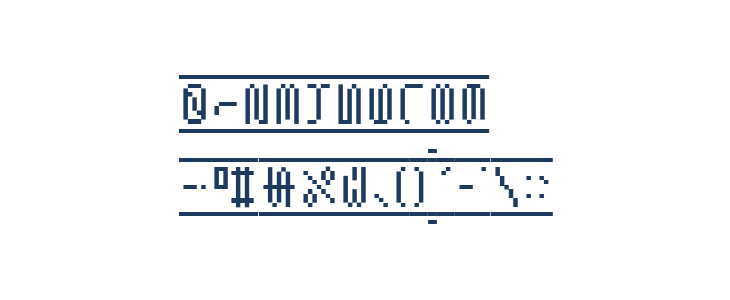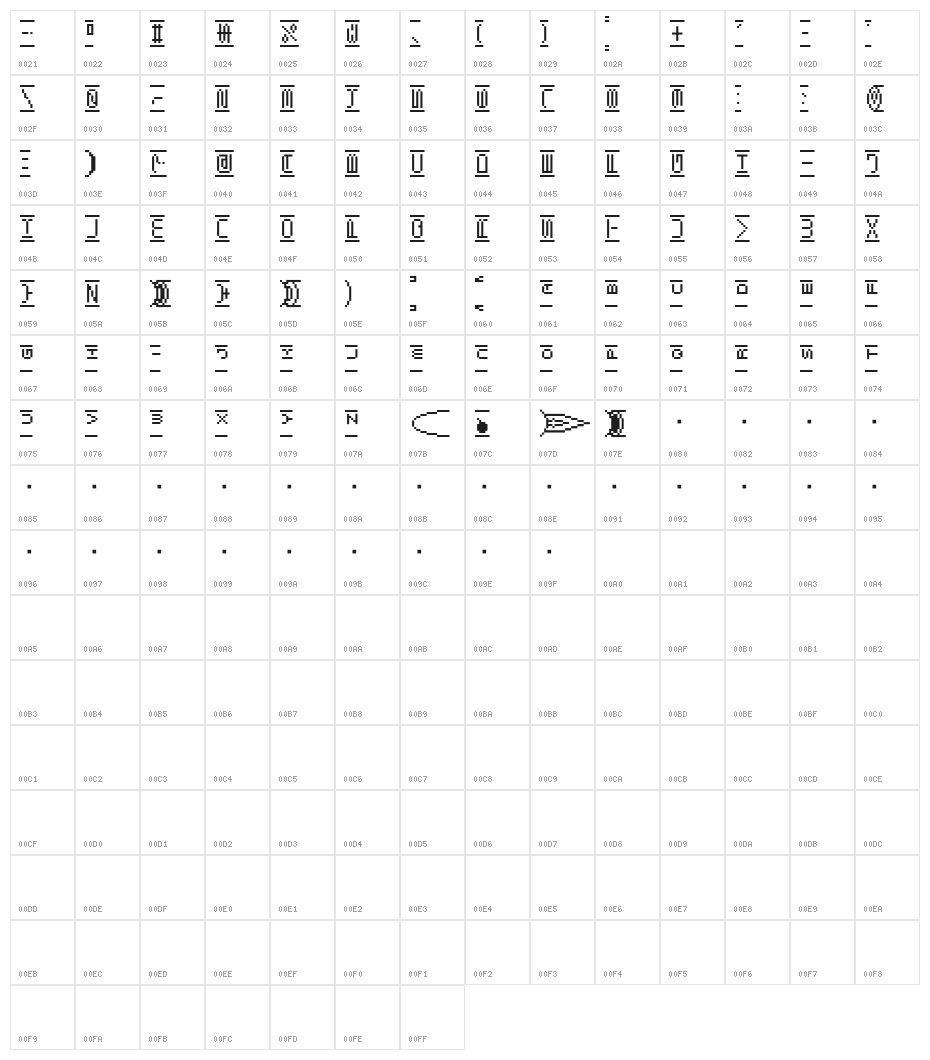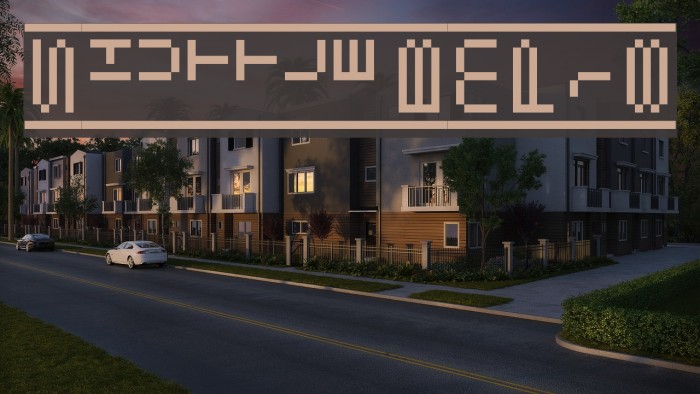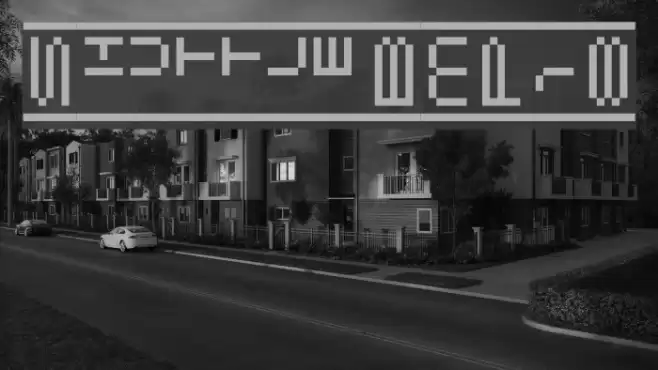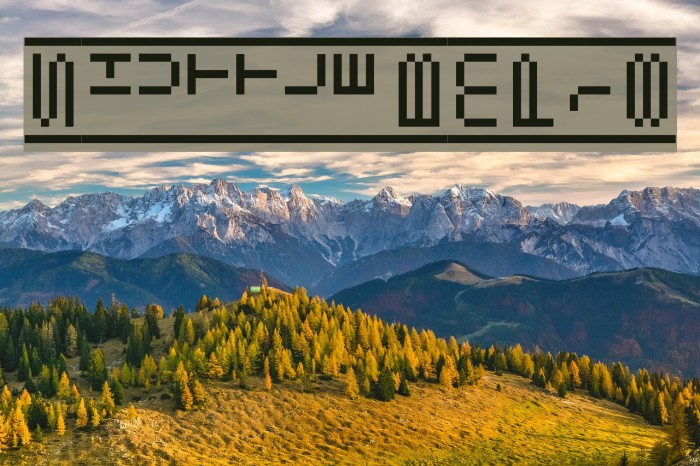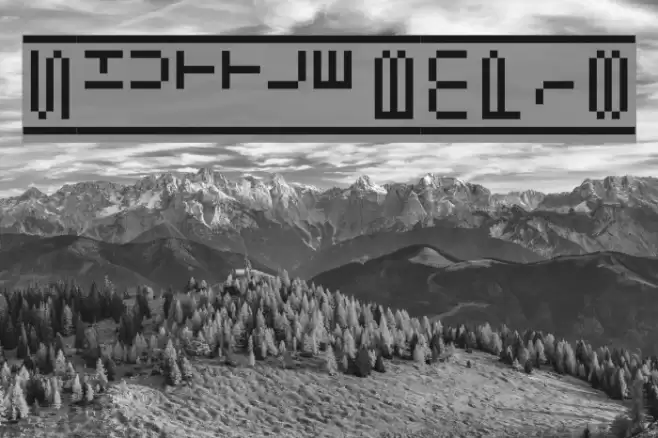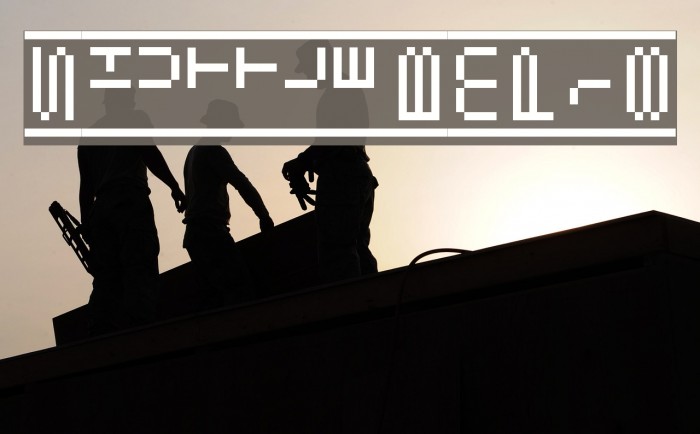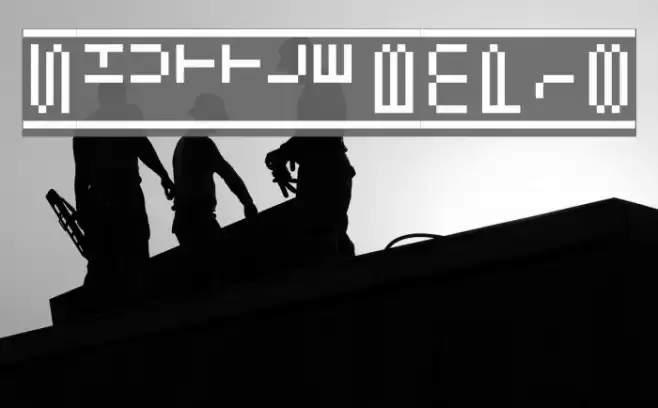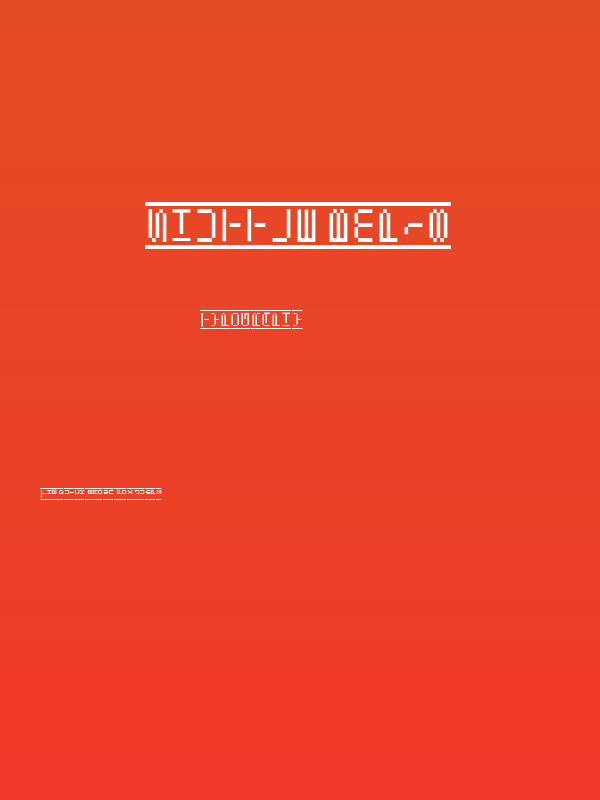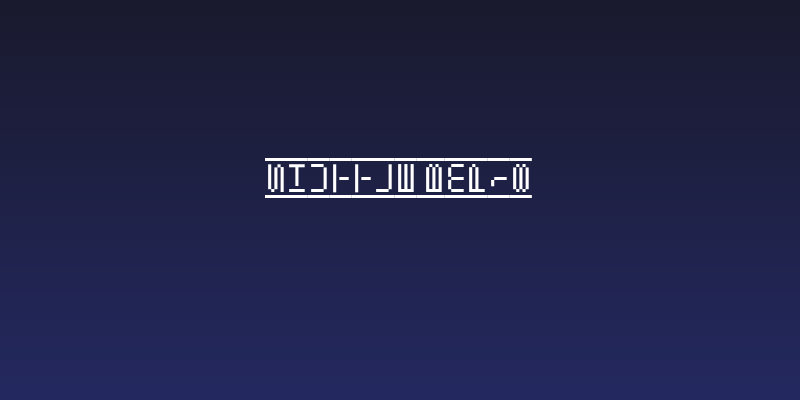
Shuttle BMP18 Font
Shuttle BMP18 Description
This font features a pixelated, blocky design reminiscent of early digital displays or retro video games. Each character is constructed with a grid-like structure, giving it a distinctly geometric and mechanical appearance. The uniformity in height and width across all characters creates a cohesive and orderly look. The font's style is highly decorative, making it suitable for projects that aim to evoke a sense of nostalgia or a futuristic, digital aesthetic. Its bold and striking presence ensures that it stands out, making it ideal for attention-grabbing headlines or titles.
| Proposed Projects | Ideal for retro video game designs, digital-themed posters, or any project requiring a nostalgic or futuristic look. |